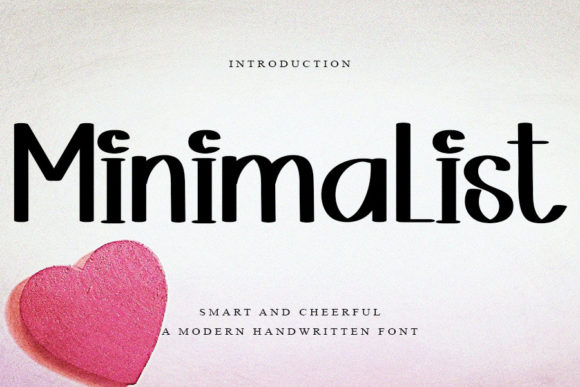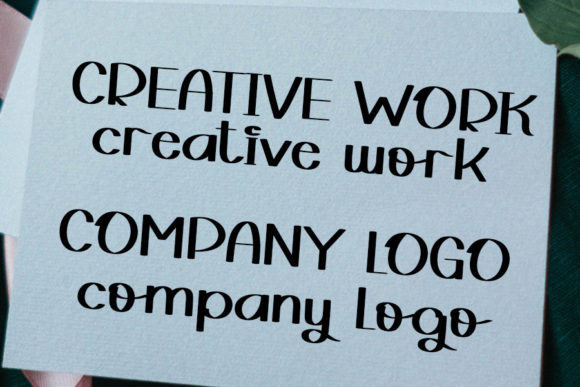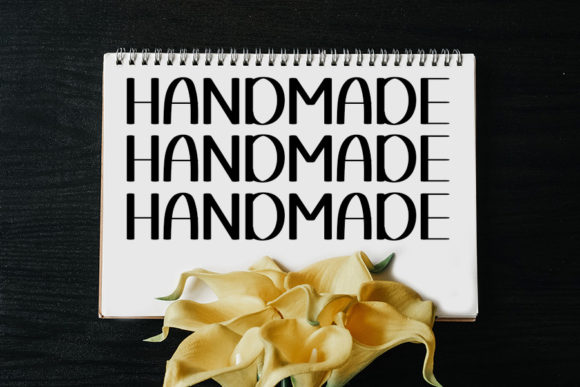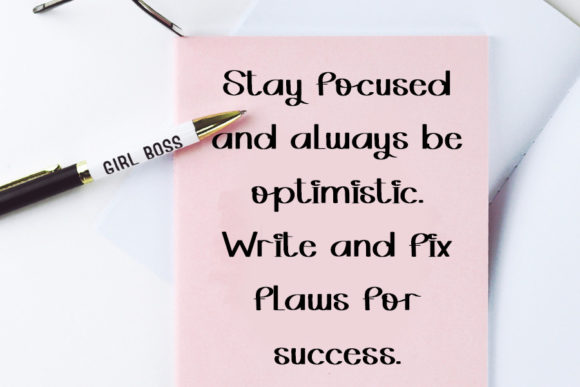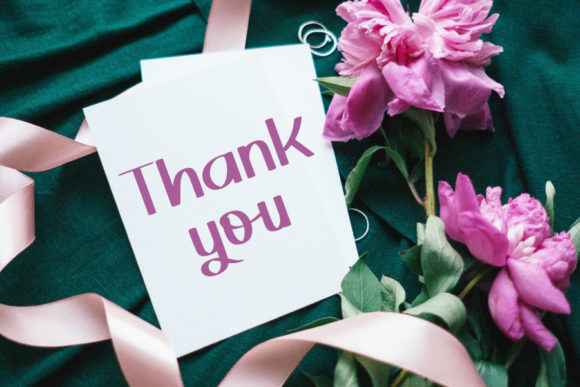
Minimalist Font
About Minimalist Font
Minimalist is an adaptable and neat handwritten font. Its distinct and well rounded letters make this font a masterpiece. Fall in love with its versatile style and use it to create spectacular designs!